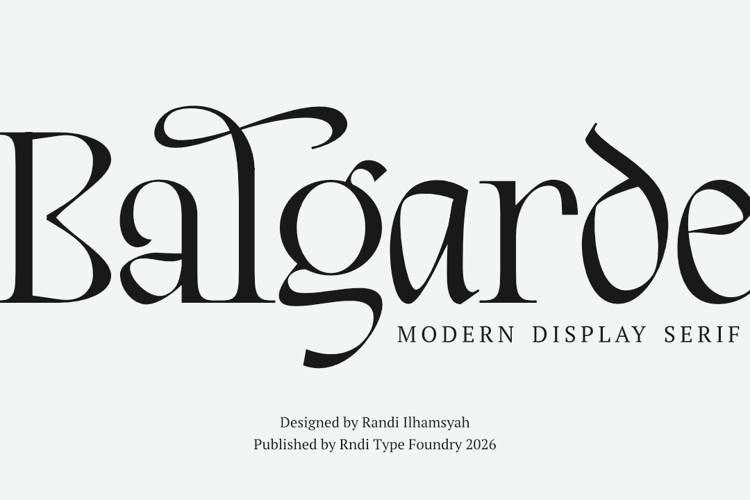
Balgarde Serif Font
Balgarde Serif is a high-contrast display serif with elegant curves and sharp details. Designed to stand out, it delivers a strong and sophisticated presence—perfect for headlines, editorial design, branding, and luxury visuals.